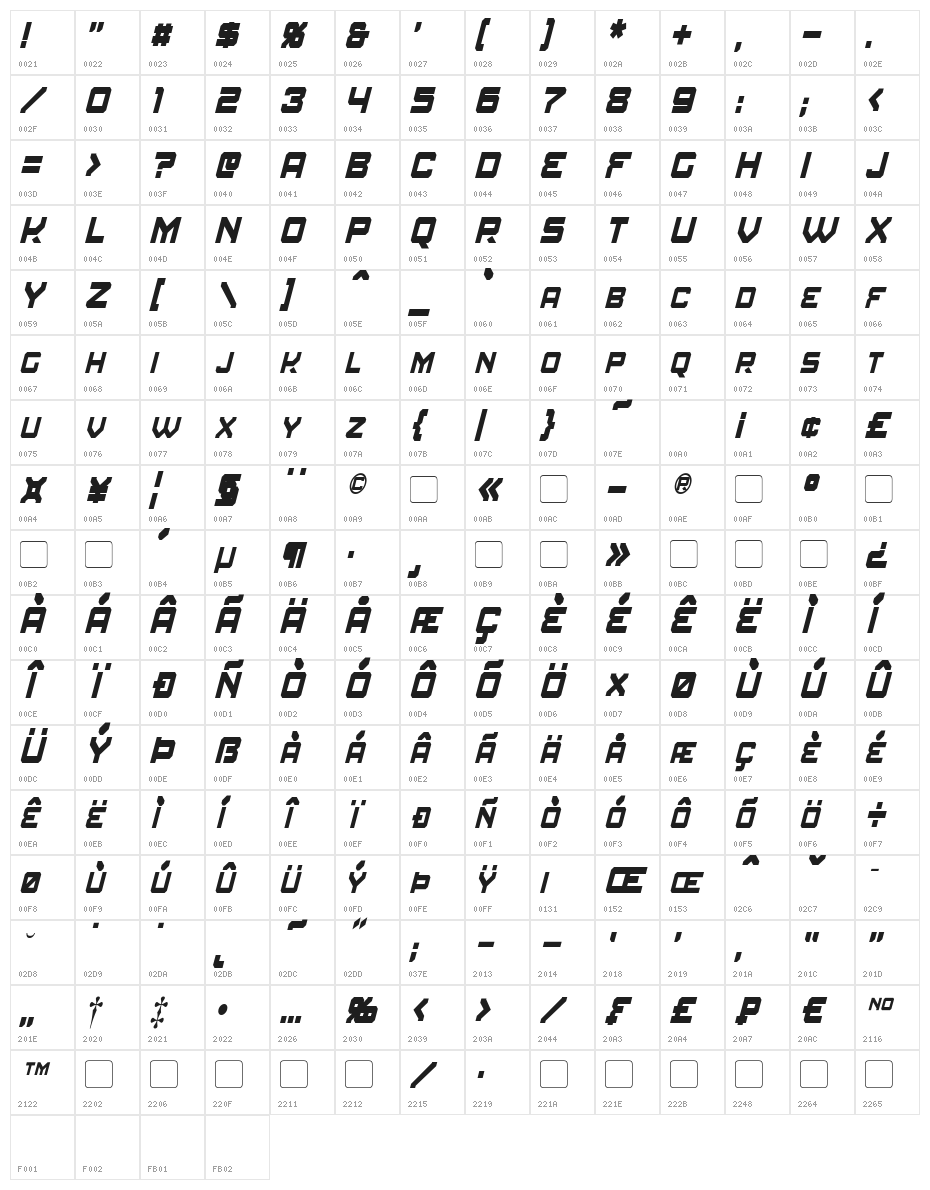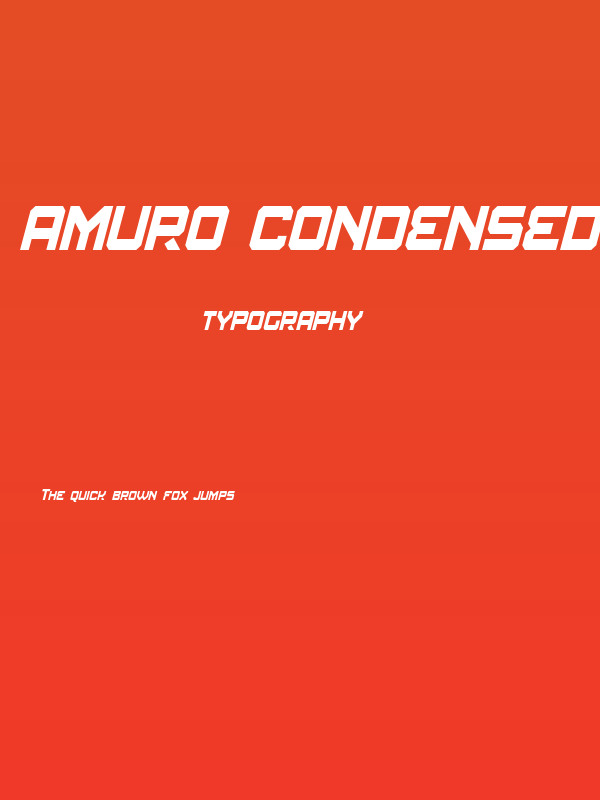
Amuro Condensed Italic Font
Amuro Condensed Italic Description
This font exhibits a bold and dynamic style with a distinctly modern flair. The characters are sharply angled, giving them a futuristic and energetic appearance. The condensed nature of the font allows for efficient use of space, making it suitable for impactful headlines and titles. The italic slant adds a sense of motion and urgency, enhancing its suitability for dynamic and forward-thinking projects. The strokes are consistent in thickness, providing a uniform and cohesive look across all characters. This font is ideal for projects that require a strong visual presence and a modern aesthetic.
| Proposed Projects | Ideal for sports branding, tech startups, modern advertising, and dynamic headlines. |